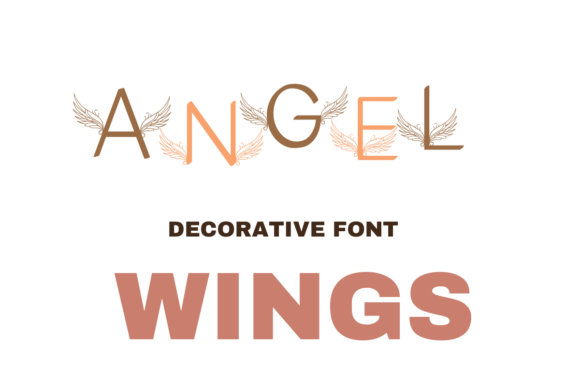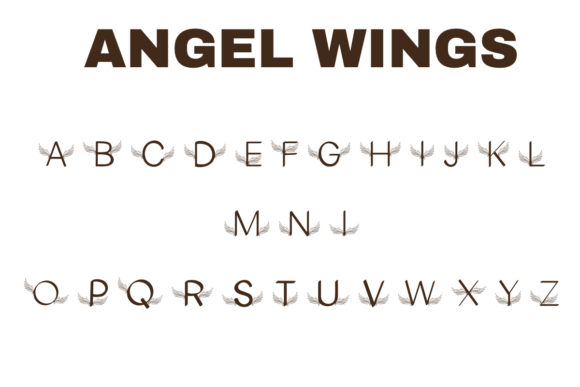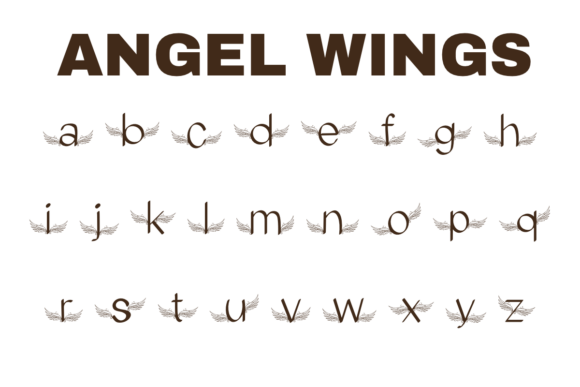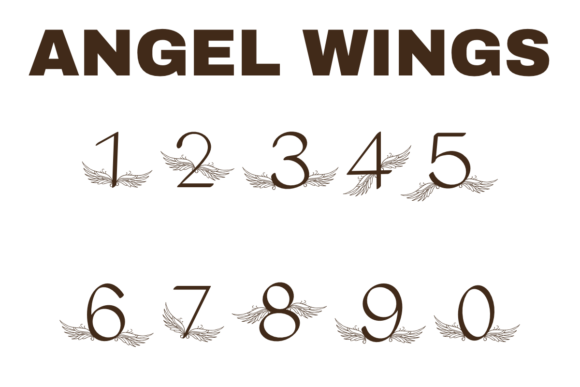
Angel Wings Font
About the Angel Wings Font
Get ready to be inspired by Angel Wings Font, a fresh and dynamic typeface for modern creators. Angel Wings is a decorative font. You can use it for taking notes, writing a diary, or making greeting cards. However, you can still use it for other designs, such as banners, content, mugs, cards, shirts, stationery, social media posts, and more!
Angel Wings’ decorative style is best suited for headlines, short text blocks on marketing materials, and branding elements requiring a touch of whimsy. It excels in applications like logos, short social media captions, and packaging designs where its unique character can shine. Avoid using it for large bodies of text or UI elements; its ornate forms hinder readability in continuous paragraphs.
The font’s personality is playful and elegant, lending itself to brands focused on creativity, art, fashion, or beauty. Consider pairing Angel Wings with a clean sans-serif like Montserrat for a balanced contrast or a classic serif like Garamond for a more sophisticated feel. A simple geometric sans-serif could also work well to ground the design and prevent it from feeling overly cluttered.
For a more modern feel, a pairing with a condensed sans-serif would add visual interest while retaining readability. Conversely, a script font might add too much ornamentation and create visual noise. Careful consideration of the supporting typography is key to maximizing the impact of Angel Wings.
Angel Wings Font Usage Examples
Angel Wings Font Example